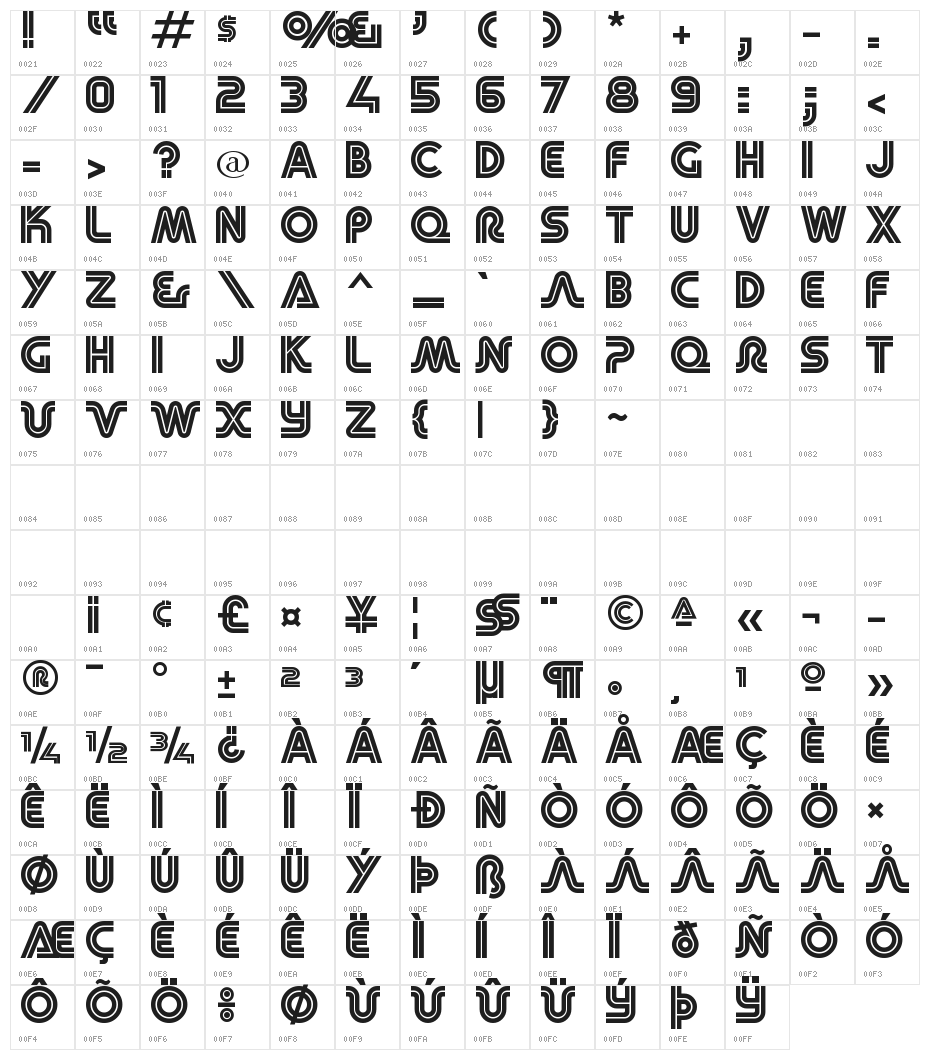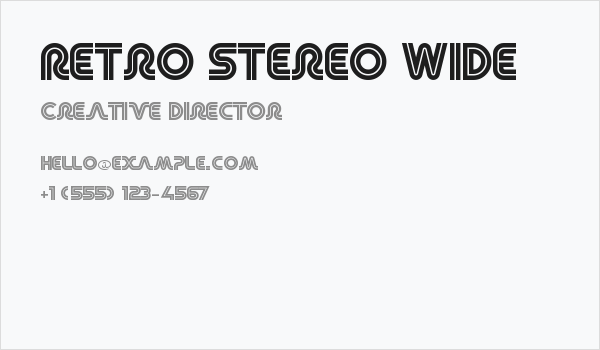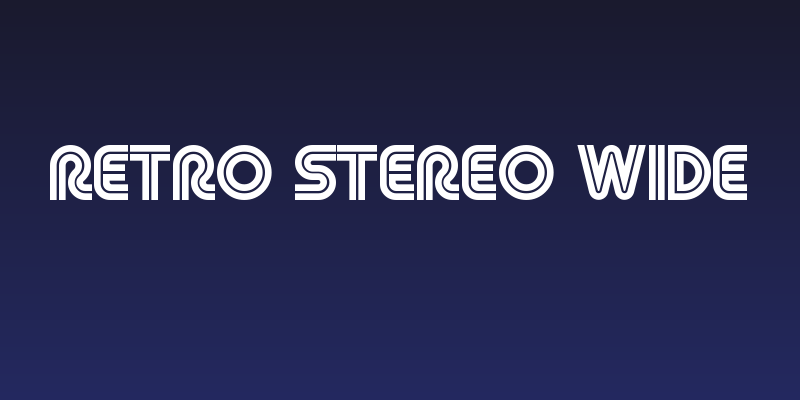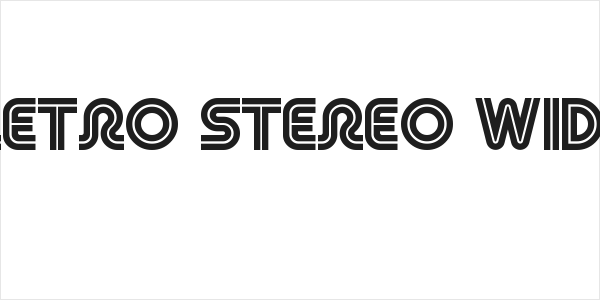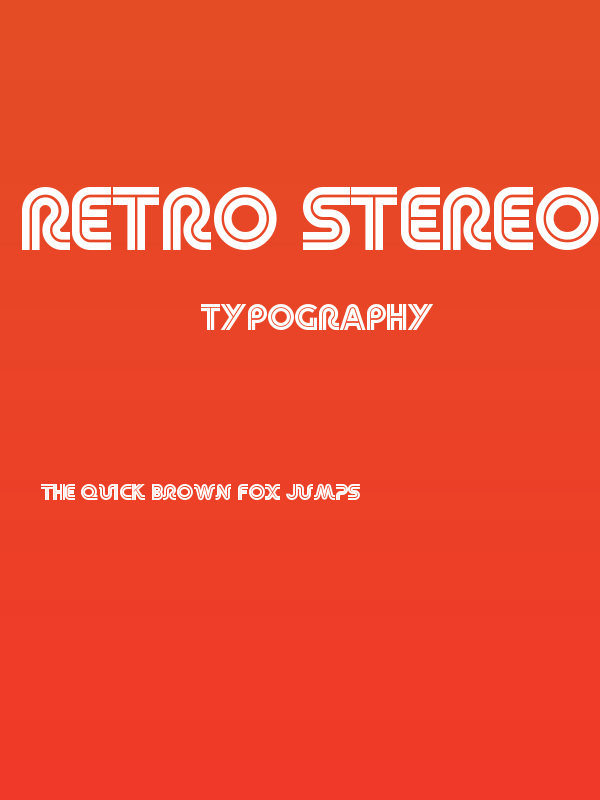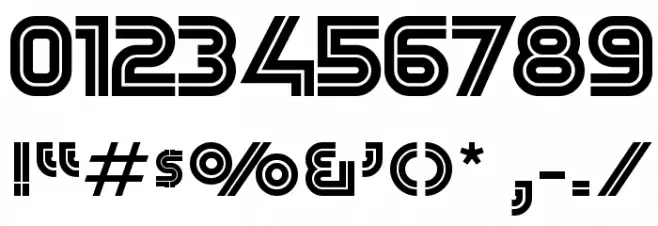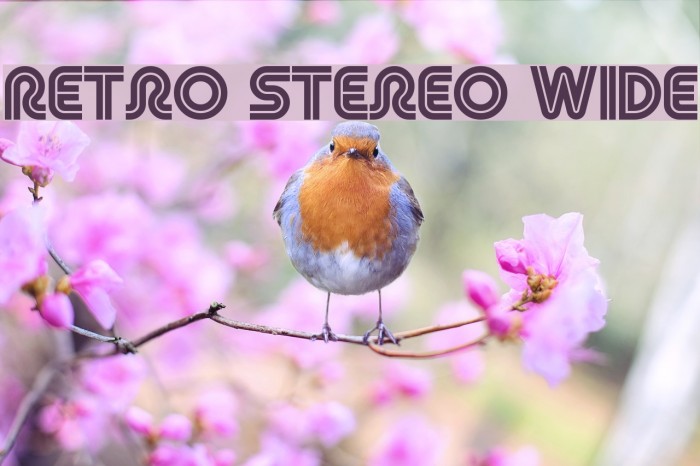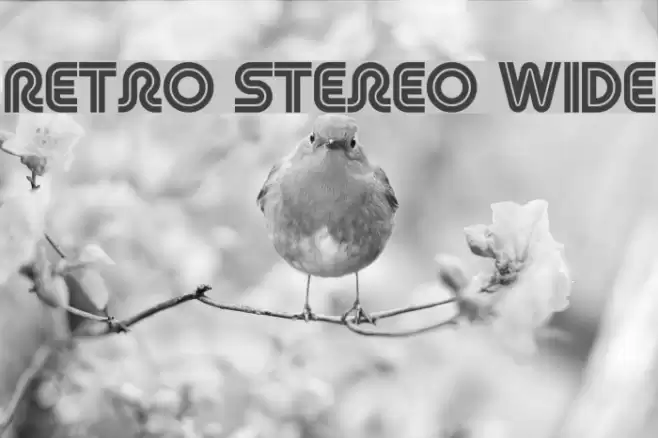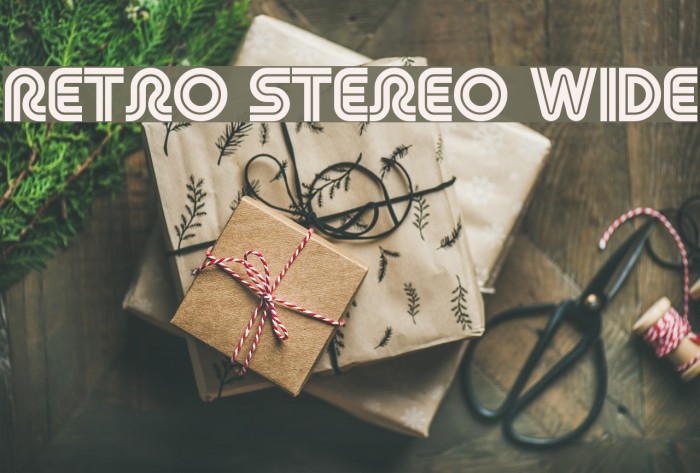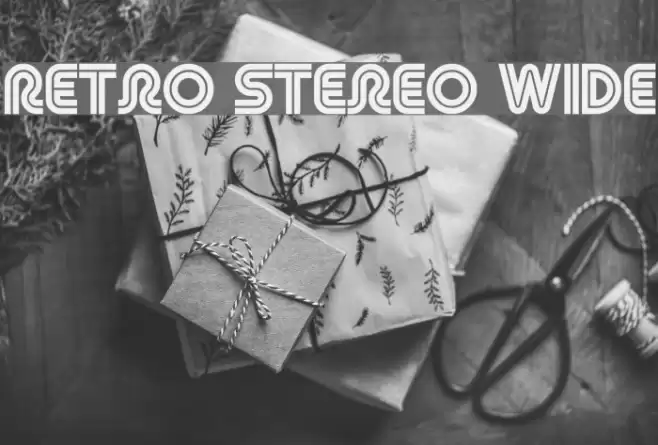
Retro Stereo Wide Font
Retro Stereo Wide Description
This font features a bold, geometric design with a distinct retro flair. The characters are constructed with multiple parallel lines, creating a layered effect that adds depth and visual interest. The uppercase and lowercase letters maintain a consistent style, with rounded edges and a uniform stroke width that enhances readability. The numerals and special characters are equally stylized, making them suitable for a variety of design applications. The overall appearance is both modern and nostalgic, reminiscent of vintage signage and classic arcade games.
| Overall Style | Retro |
| Proposed Projects | Ideal for retro-themed posters, vintage branding, video game graphics, and eye-catching headlines. |